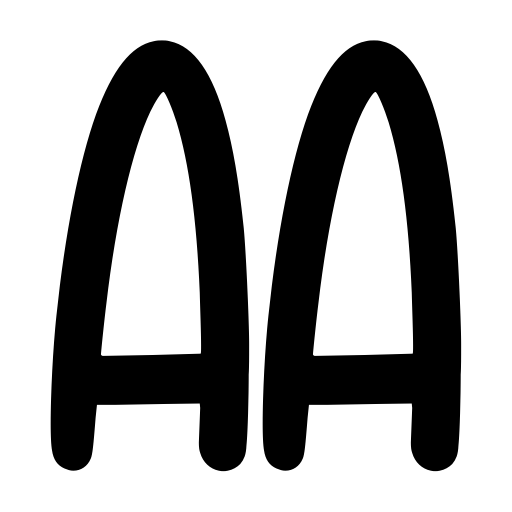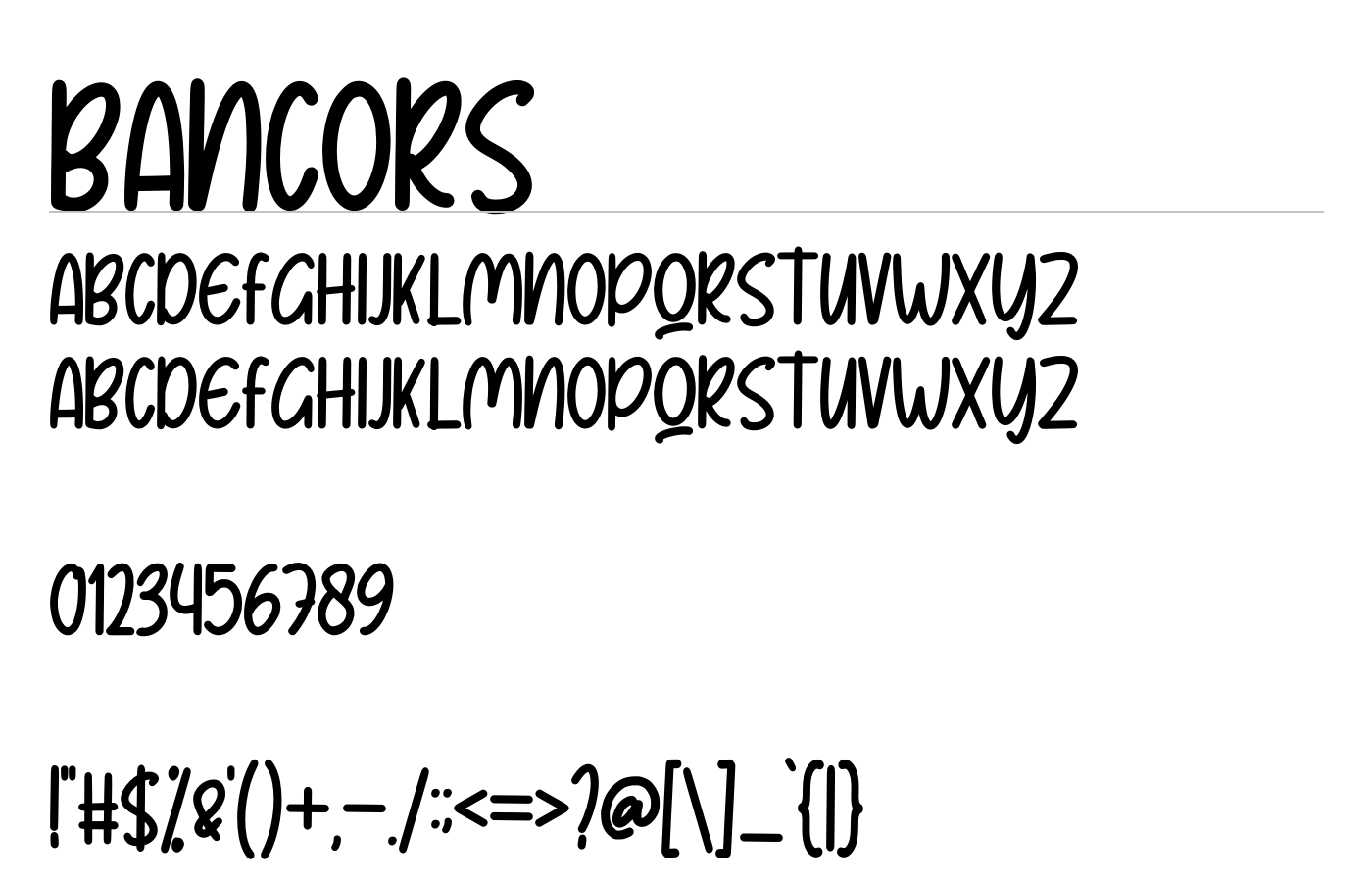
Bancors is a playful, casual handwritten sans serif font with a friendly and approachable character. Its slightly irregular strokes and tall x-height give it an informal yet clear appearance, making it perfect for creative projects, children’s content, and lighthearted branding. This font works well in headlines, invitations, and packaging where a warm, personal touch is desired.
Bancors Font
About Bancors Font